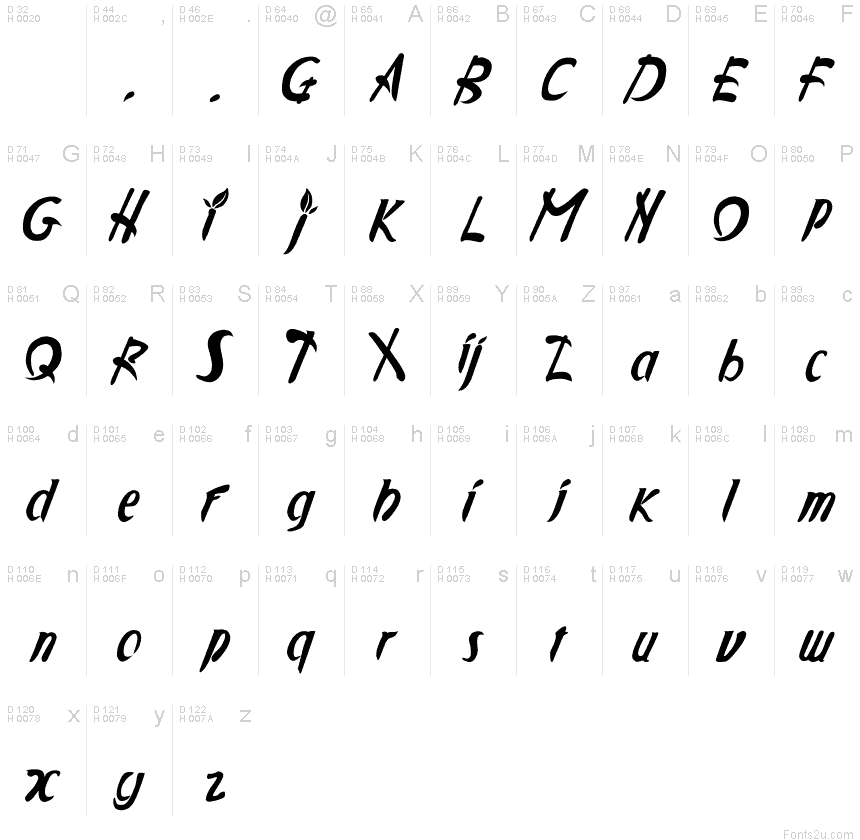
AppleJuiced
Apple Juiced font by Jordie van Rijn is a free handwritten script typeface that looks like it was painted in one confident, inky sweep. Its tall, narrow letters lean forward with a juicy slant, giving every word a sense of momentum, like something quickly jotted on a chalkboard or a fresh juice bottle label. The strokes feel slightly rough at the edges, adding a human, tactile texture that keeps it from looking sterile or overly polished.
Using Apple Juiced, your text instantly picks up energy and personality, making this free font a natural fit for café menus, product packaging, bold quote graphics, social media posts, handmade-style logos, and posters. It shines at larger sizes where those brushy details can breathe. For a clean, balanced look, pair Apple Juiced for headlines with a simple sans serif for body copy, letting the handwritten script carry the flavor while the companion keeps everything readable.